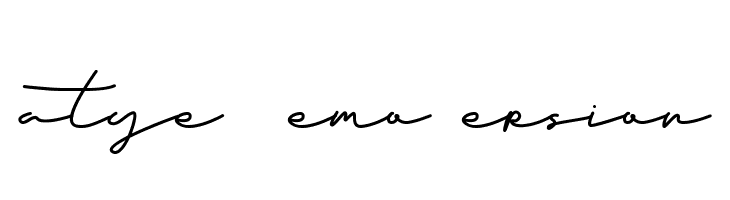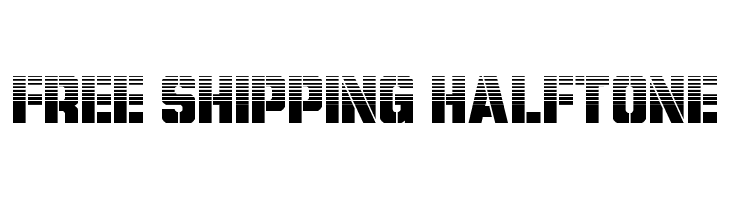
A delicate and elegant script font with fluid, continuous strokes.
A geometric, angular font with a modern and futuristic aesthetic.
A playful, bubble-like font with characters enclosed in ovals, perfect for creative projects.
A bold, handwritten font with a dynamic and playful style.
A bold, italicized font with rounded edges and a modern, approachable style.
A playful, handwritten font with smooth, flowing strokes and a whimsical charm.
A playful, heart-enclosed handwritten font perfect for romantic or themed designs.
A bold, geometric font with a modern and edgy design.
A graceful script font with flowing, interconnected letters and elegant curves.
A bold, geometric font with a modern and futuristic style.